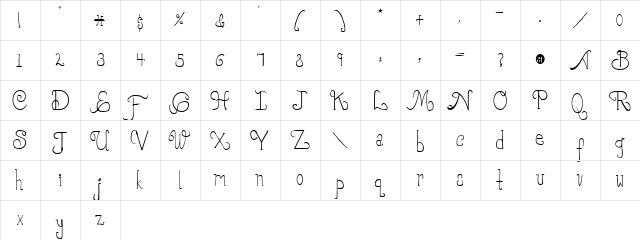
Epiphany Regular
Design Context for Epiphany Typeface
Epiphany is a composed and adaptable typeface that performs quietly and consistently across a wide range of design contexts.